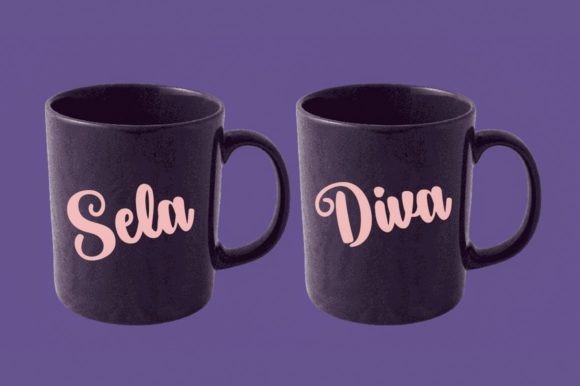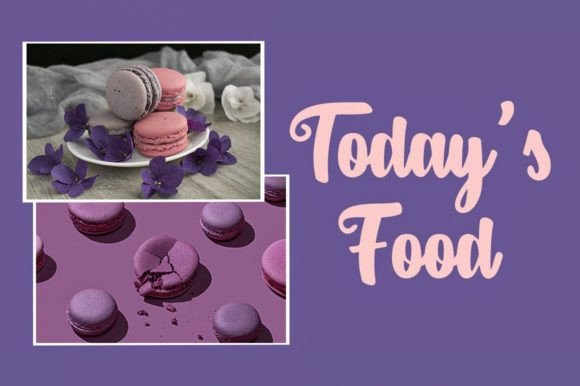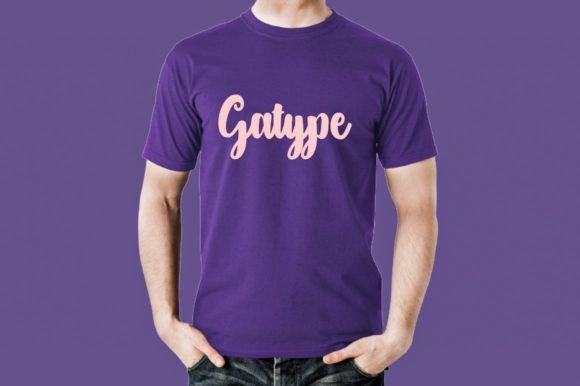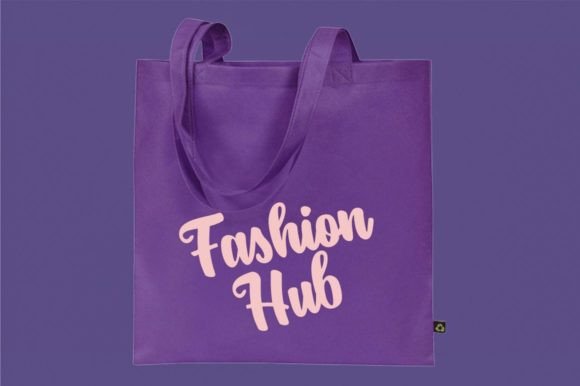
Hello Solvita Font
About Hello Solvita Font
Hello, Solvita is a fancy retro script font. With bold high-contrast strokes, a playful character with a bit of binder and an alternative style.  Hello, Solvita is great for logo designs, social media, Movie Titles, Book Titles, short text, and even long text, and great for your secondary text with sans or serif.